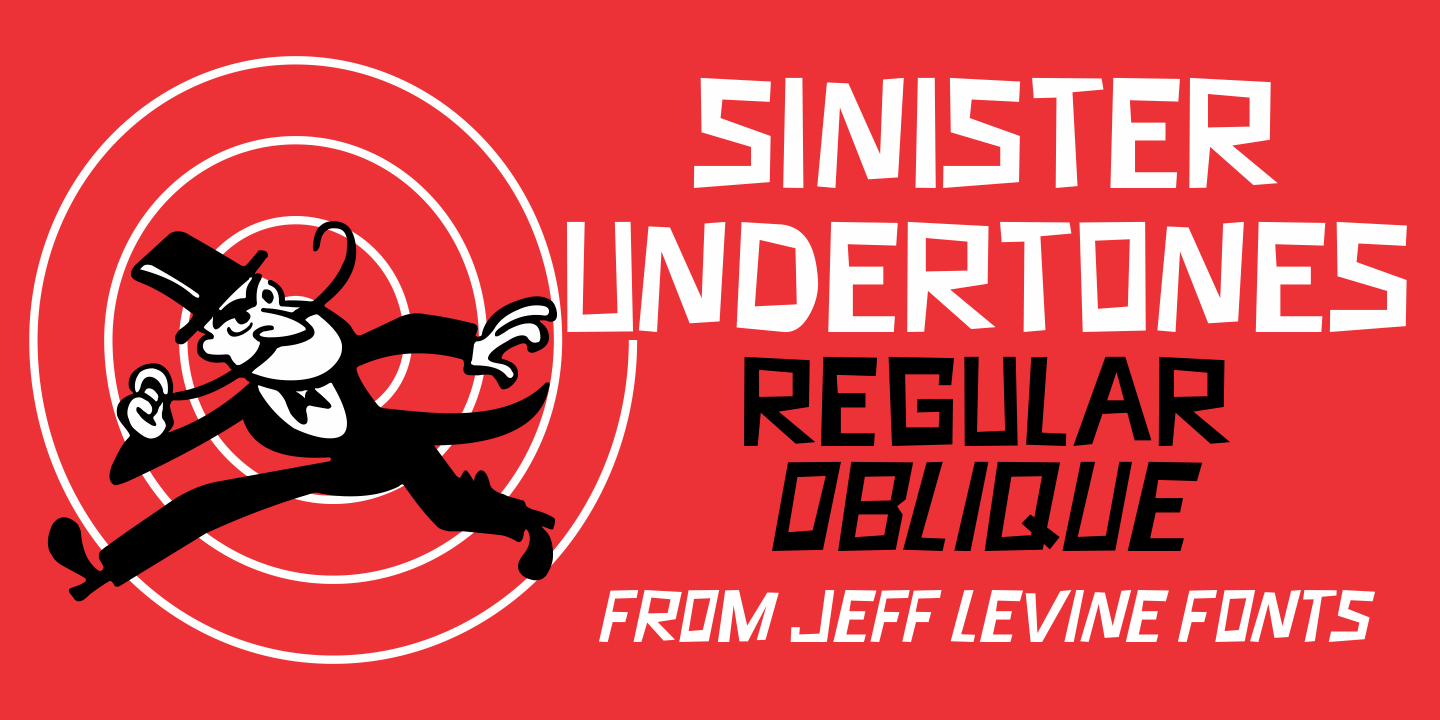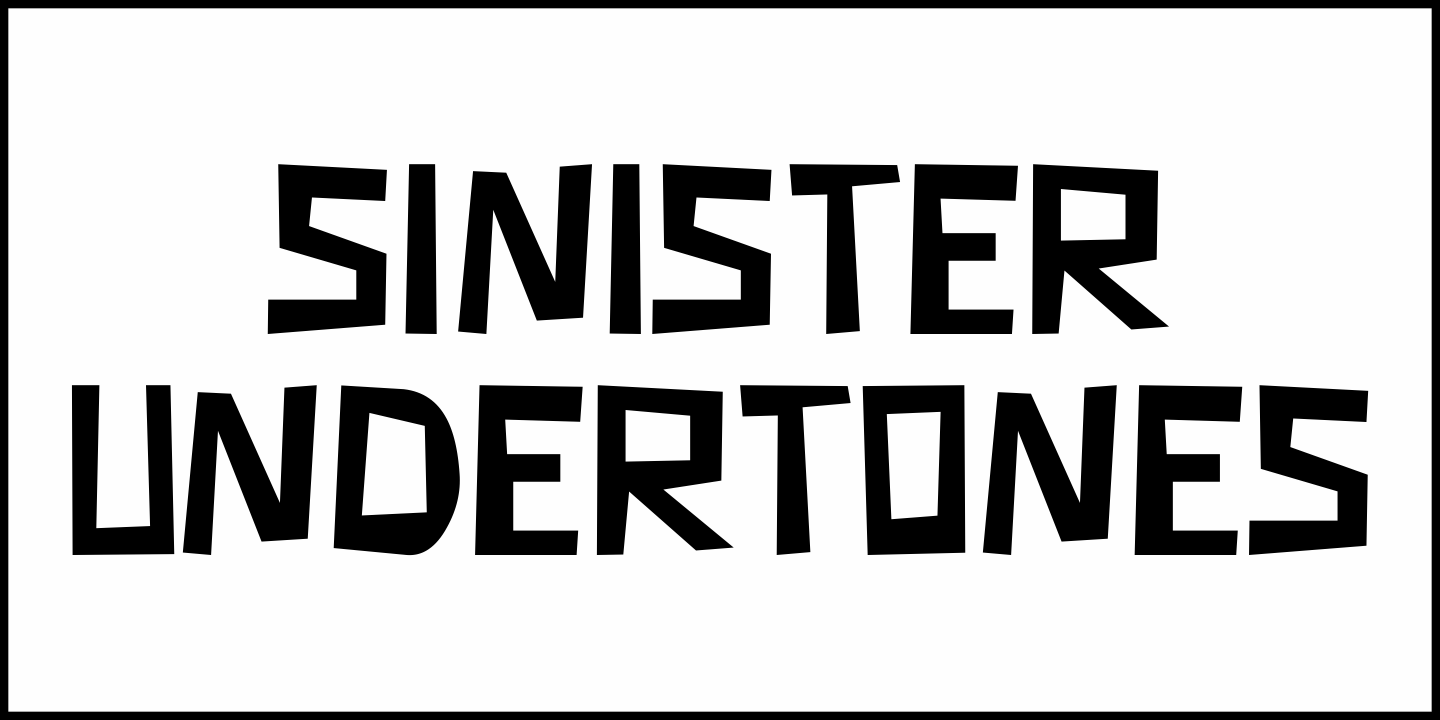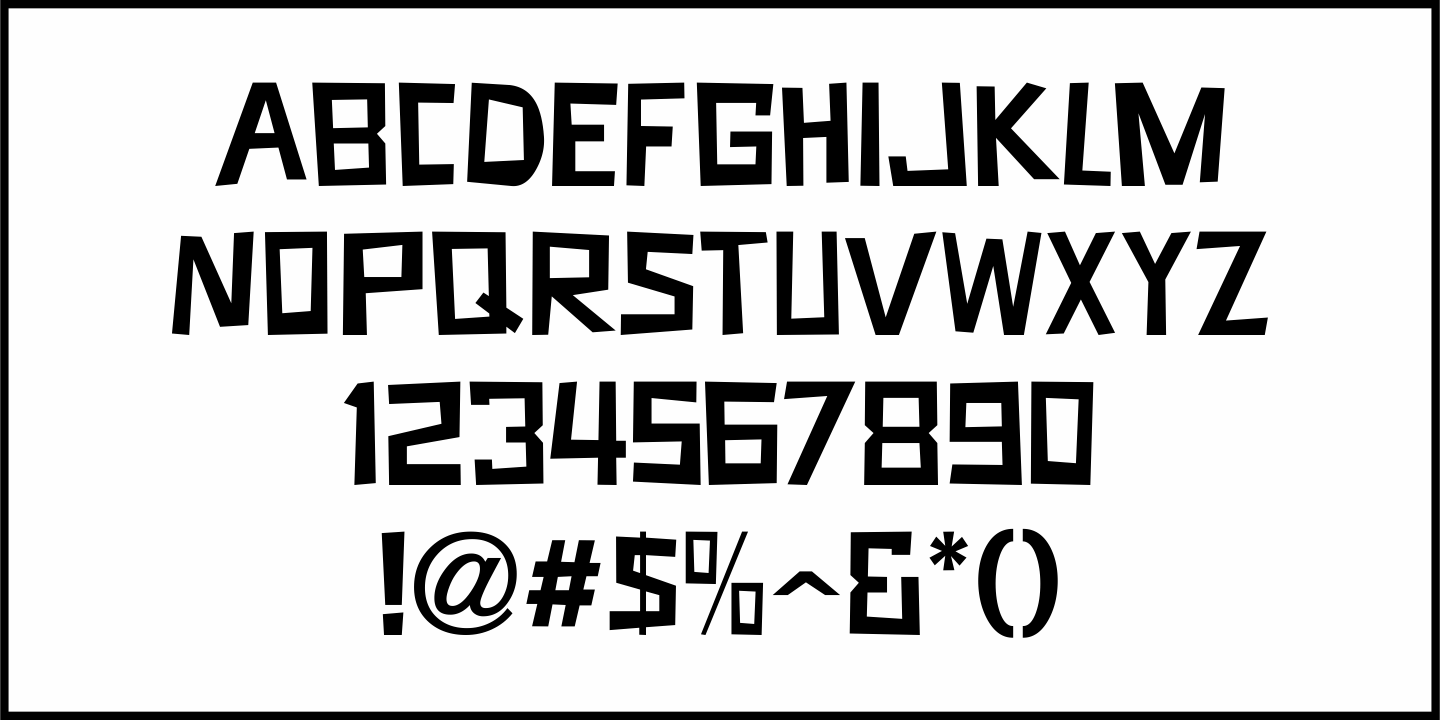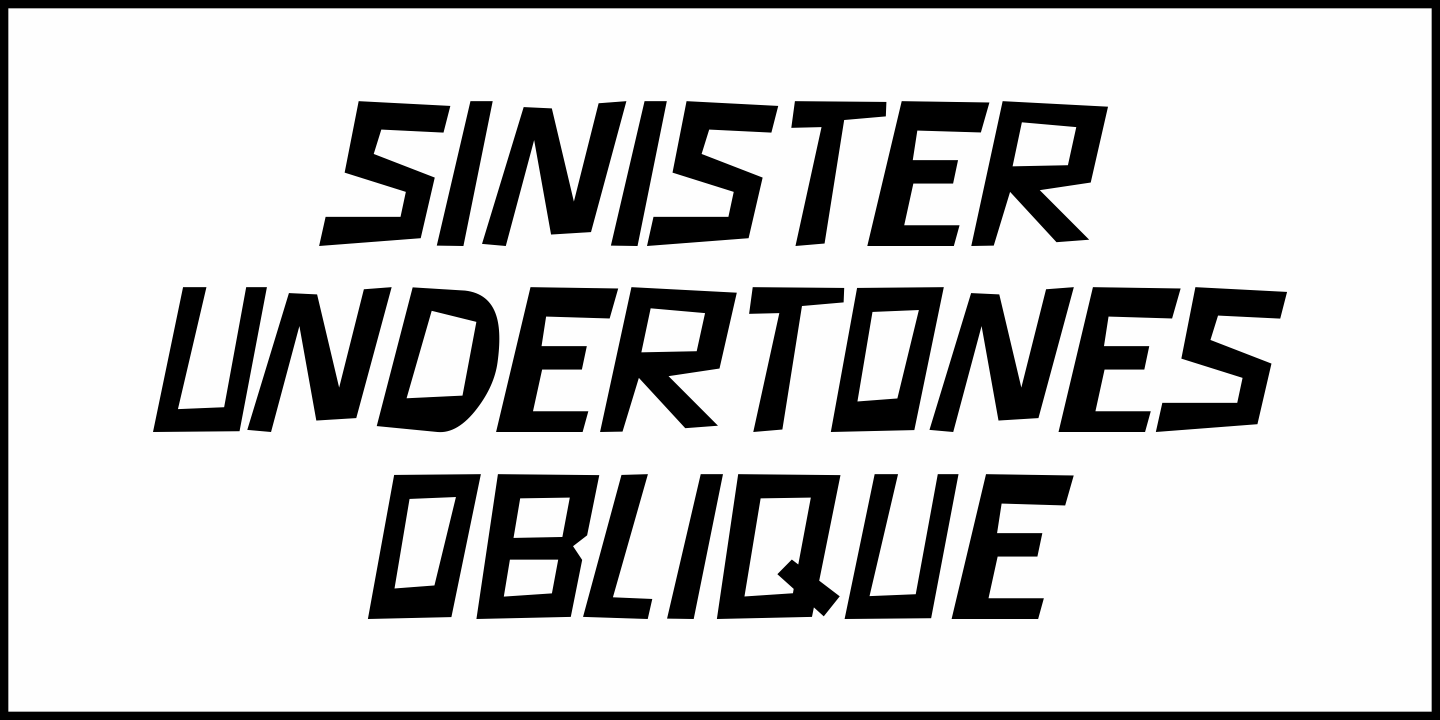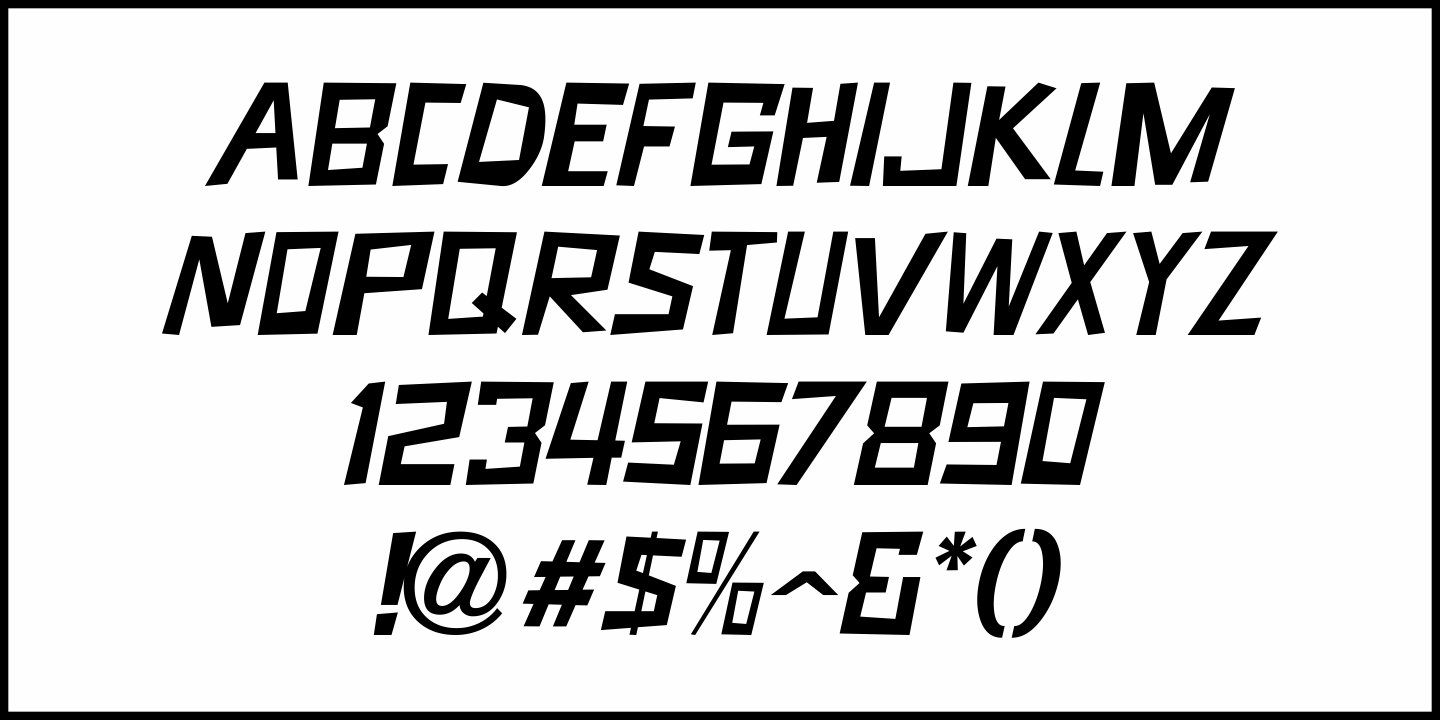
Sinister Undertones
Hand lettering from the 1958 movie poster for 'Vertigo' (designed by Saul Bass) was the inspiration for the digital font Sinister Undertones JNL, which is available in both regular and oblique versions.
The quirkiness of this irregular, squared-edge sans – despite its simplicity – perfectly captured the mood and drama of Alfred Hitchcock's film production.
Sinister Undertones JNL Oblique
Sinister Undertones JNL Regular